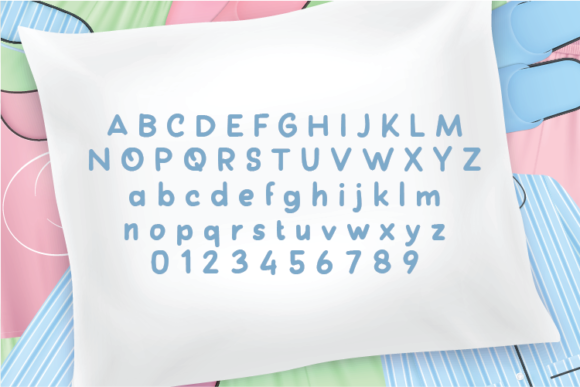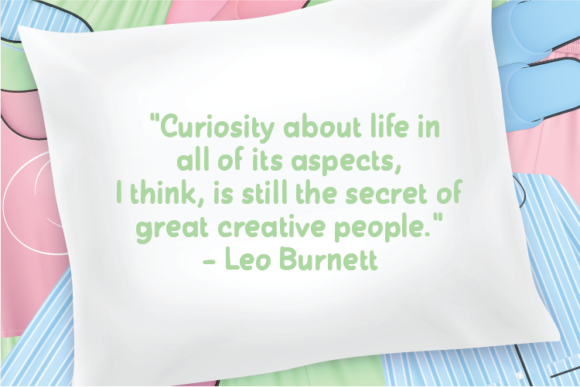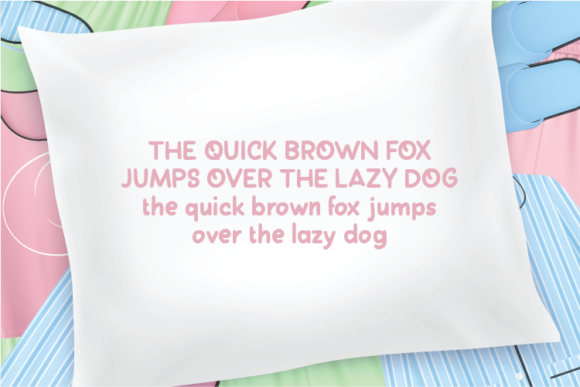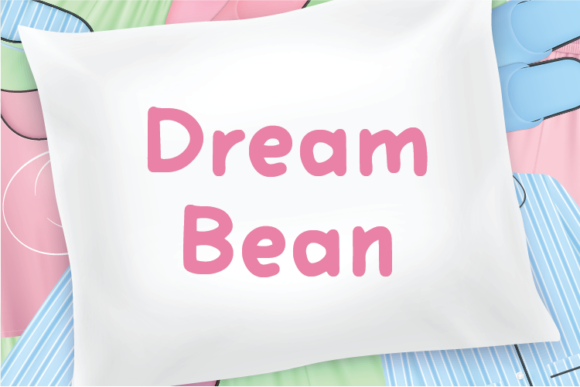
Dream Bean Font: The Ultimate Choice for Designers and Crafters
In the world of typography, a good font can make all the difference in the success of a design project. Whether you’re a designer, crafter, or DIY enthusiast, finding the right font can be a daunting task. However, if you’re looking for a unique and natural handwritten font that can add a personal touch to your designs, look no further than the Dream Bean Font.
What Makes Dream Bean Font So Special?
Dream Bean is a natural handwritten font that stands out from the crowd due to its distinctive feature: not a single node in each character’s indentation has been changed. This means that the font has a truly organic and handmade feel to it, making it perfect for designs that require a personal and human touch.
Perfect for Quotes, Notes, Tees, and More
Dream Bean Font is incredibly versatile and can be used for a wide range of design projects. Whether you’re creating inspirational quotes, notes, t-shirts, or any other product design, this font is sure to impress. Its unique and natural look makes it perfect for:
- Inspirational quotes and posters
- Personalized notes and stationery
- T-shirt and apparel design
- Product packaging and labeling
Why Designers and Crafters Love Dream Bean Font
Designers and crafters love Dream Bean Font for several reasons:
- Uniqueness: The font’s natural and handmade look makes it stand out from more traditional fonts.
- Versatility: Dream Bean Font can be used for a wide range of design projects, from digital to print.
- Ease of use: The font is easy to read and works well in both large and small sizes.
- Customization: The font’s natural look makes it easy to customize and pair with other fonts.
Tips for Using Dream Bean Font
To get the most out of Dream Bean Font, here are a few tips:
- Use it for headlines and titles: The font’s unique look makes it perfect for headlines and titles.
- Pair it with other fonts: Experiment with pairing Dream Bean Font with other fonts to create a unique look.
- Use it in combination with images: The font’s natural look works well with images and illustrations.
- Experiment with colors: Try using different colors to add depth and interest to your designs.
In conclusion, Dream Bean Font is a unique and natural handwritten font that is perfect for designers and crafters looking to add a personal touch to their designs. Its distinctive feature of not changing a single node in each character’s indentation makes it stand out from other fonts. With its versatility, ease of use, and customization options, Dream Bean Font is sure to become a favorite among designers and crafters.